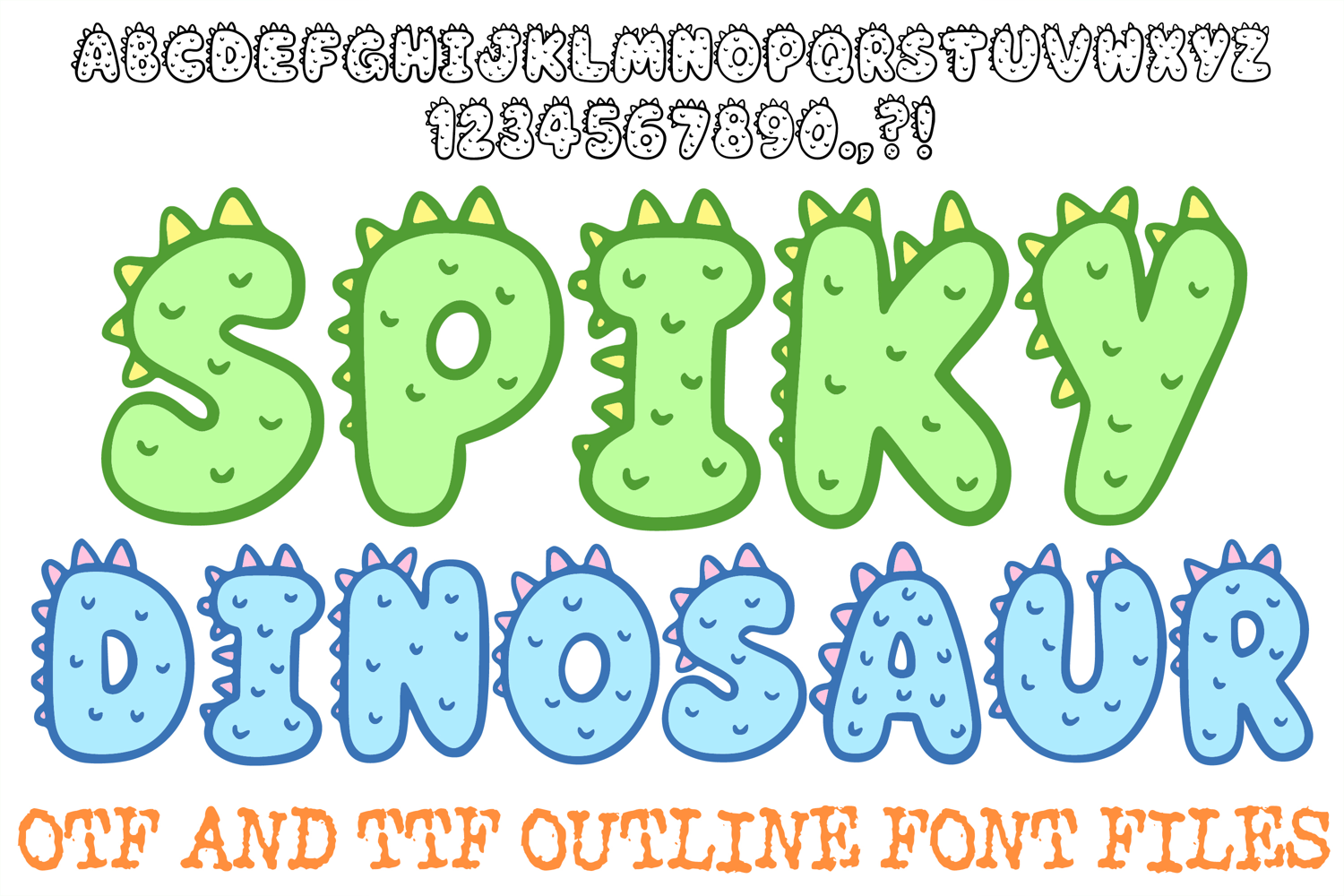
Spiky Dinosaur Alphabet Lettering Font Monster Cartoon ABC
Roar into prehistoric adventure, cute cartoon fun, and playful monster energy with the Spiky Dinosaur Font. This whimsical display typeface features bubbly letterforms adorned with cute dinosaur back spikes, stegosaurus plates, and textured scale details. Complete with full uppercase letters, numbers, and standard punctuation, this set brings joyful prehistoric charm and bold cartoon novelty to your typography projects.
Delivered as installable OTF and TTF outline font files, this versatile decorative typeface enables seamless typing and effortless scaling across graphic design software, cutting machines, and print applications. It serves as an essential resource for a designer building birthday party banners, creating custom kids' apparel, or publishing playful activity books. The thick hand-drawn outlines, rounded letter edges, and playful spiky accents ensure eye-catching, high-impact results across physical merchandise and digital products.